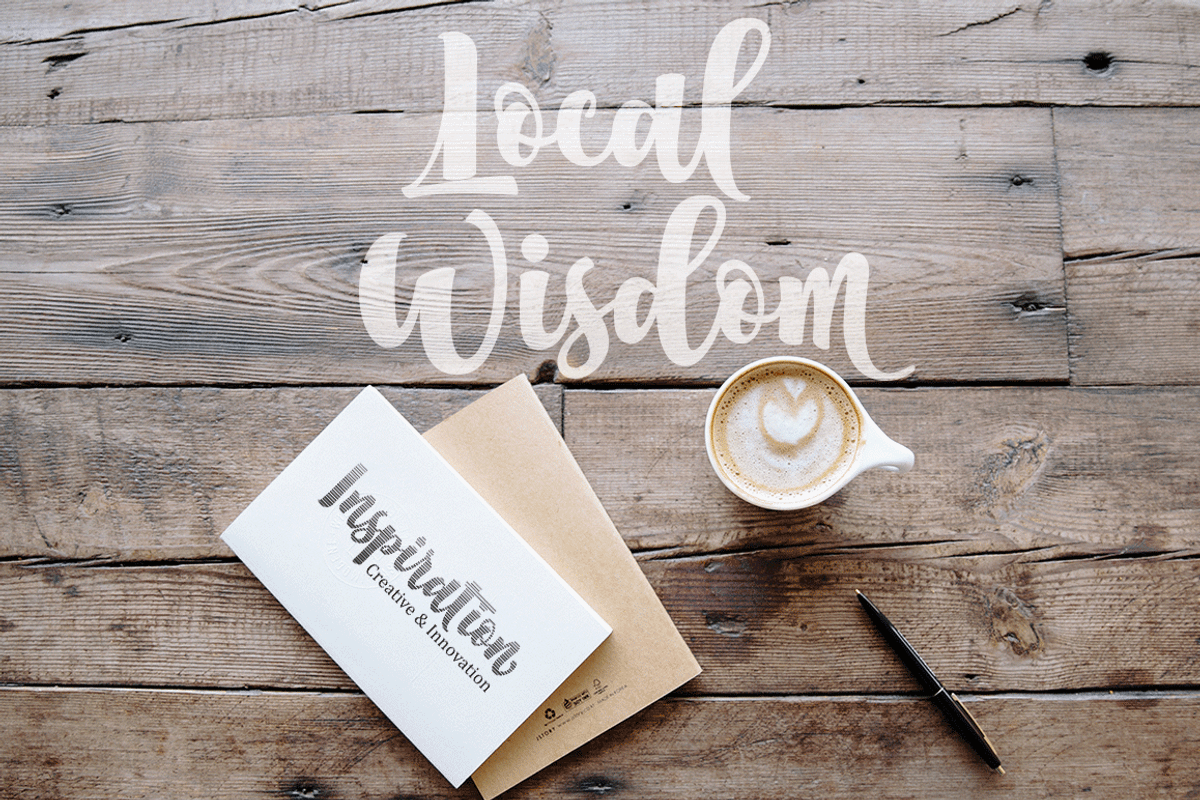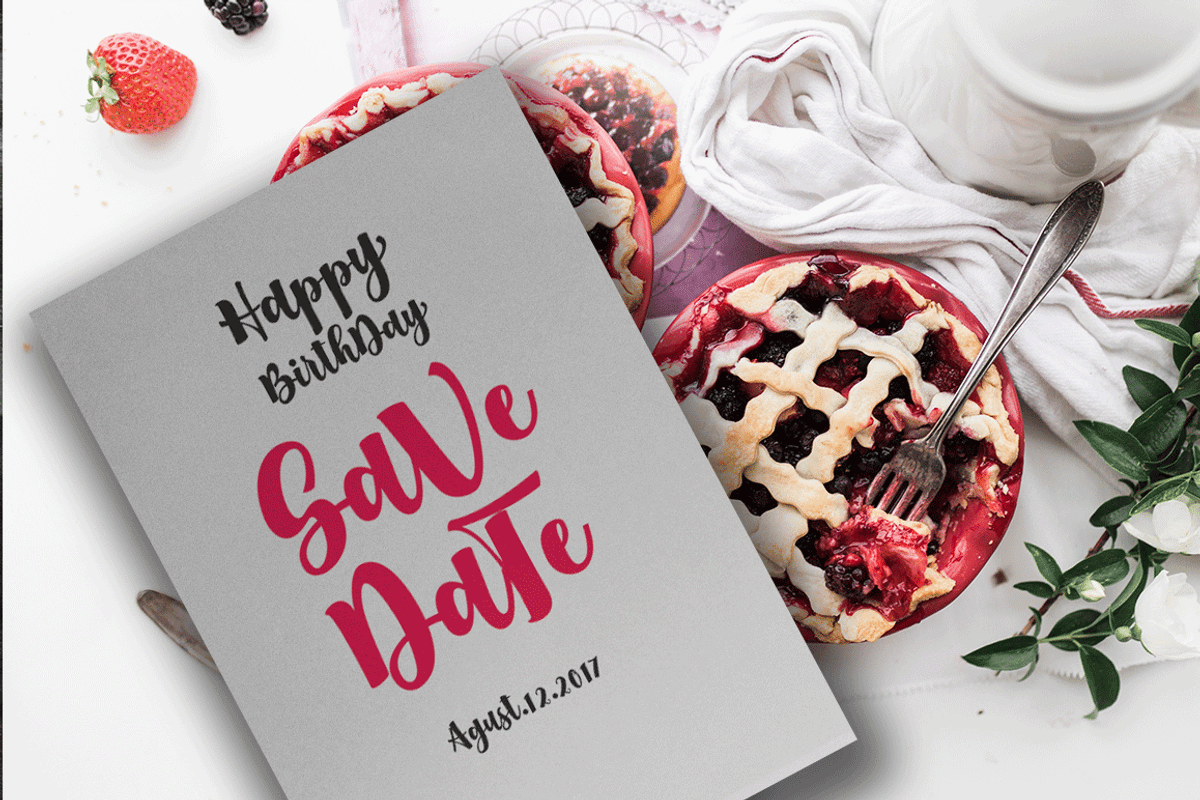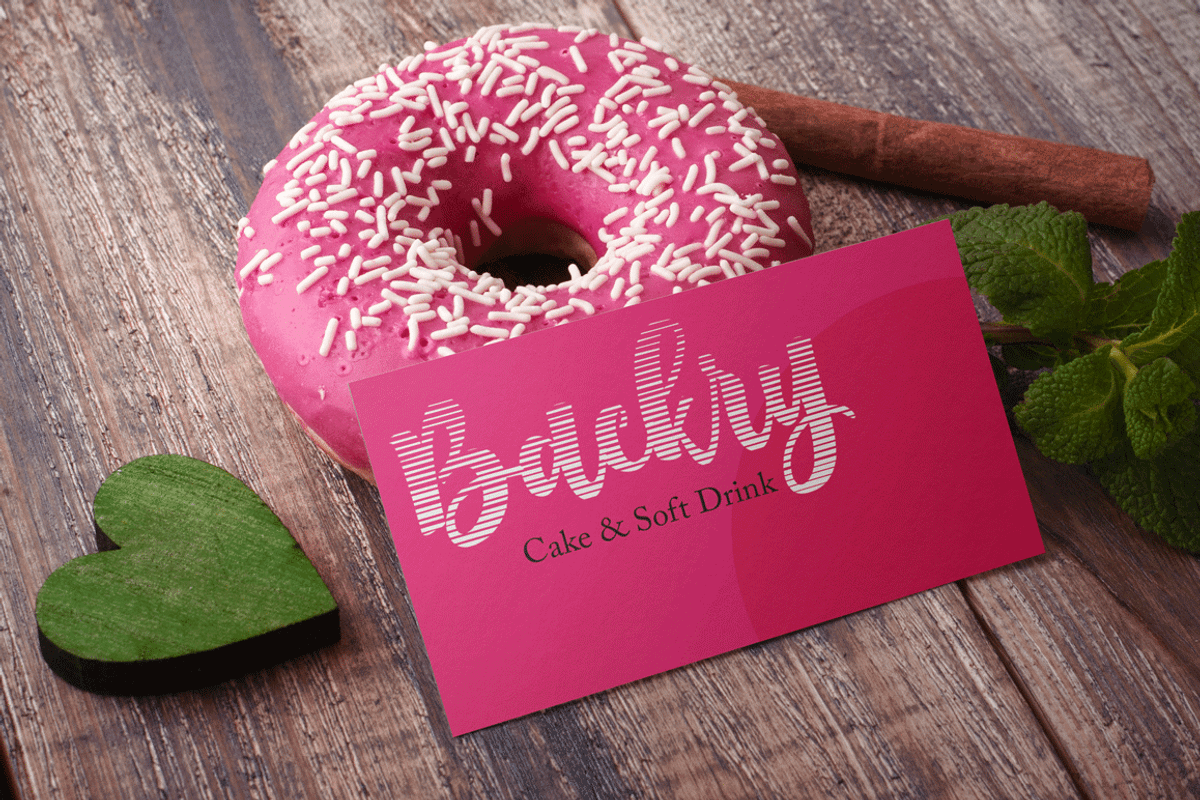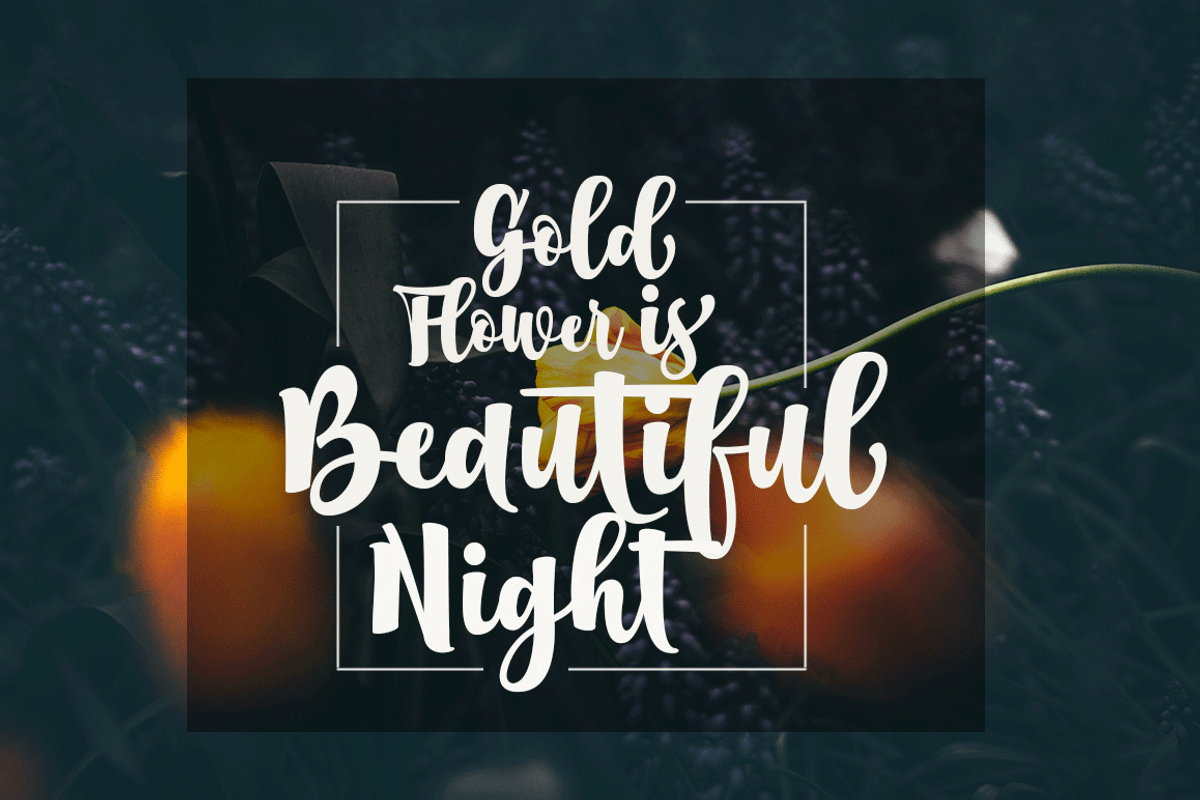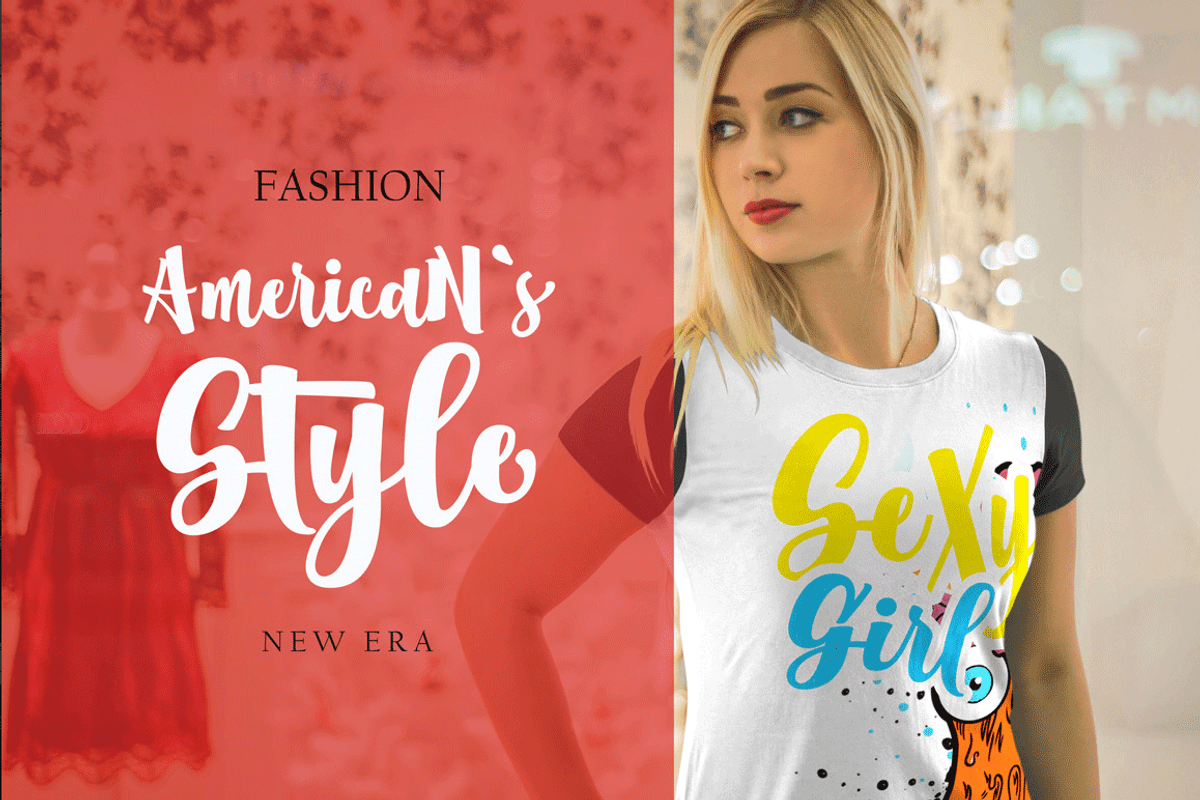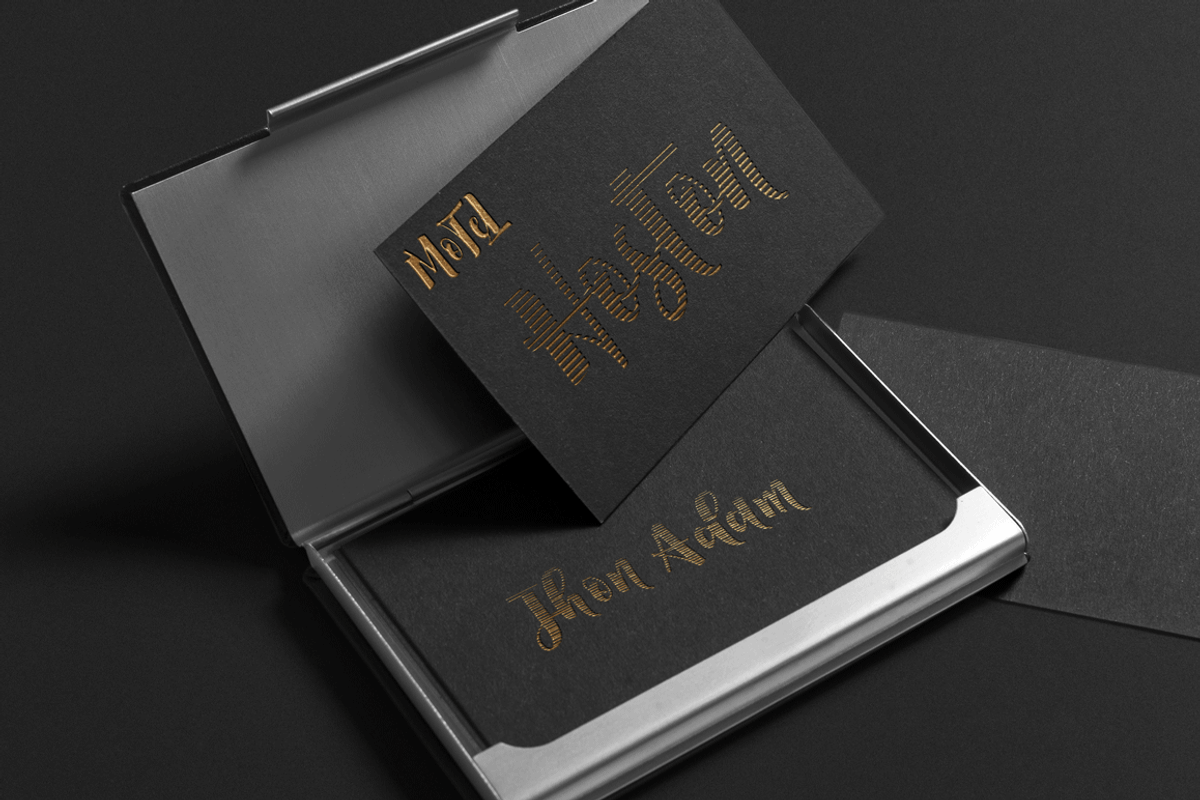
Boston (fonts duo)
Boston (fonts duo) by jorse is a font selected for branding, posters, packaging, typography.
Why Boston (fonts duo) is worth a look
Boston (fonts duo) by jorse fits naturally into Branding, posters, packaging, typography.